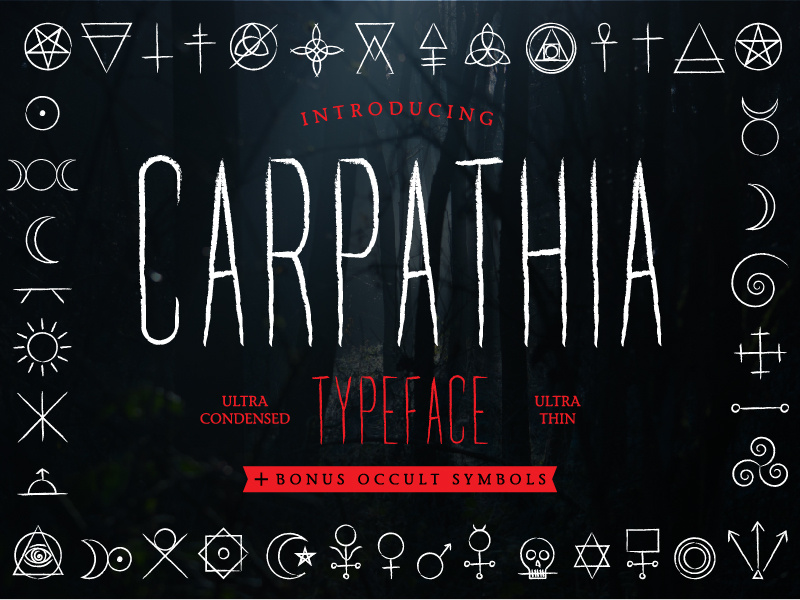
Carpathia Typeface
Just finished my second typeface: Carpathia. It is a horror display typeface inspired by witchcraft and sorcery. Its ultra condensed, carved styling evokes a spooky handmade feel that will add character to any project.
As a bonus I designed over 50 Occult Symbols that match the styling of the letters.